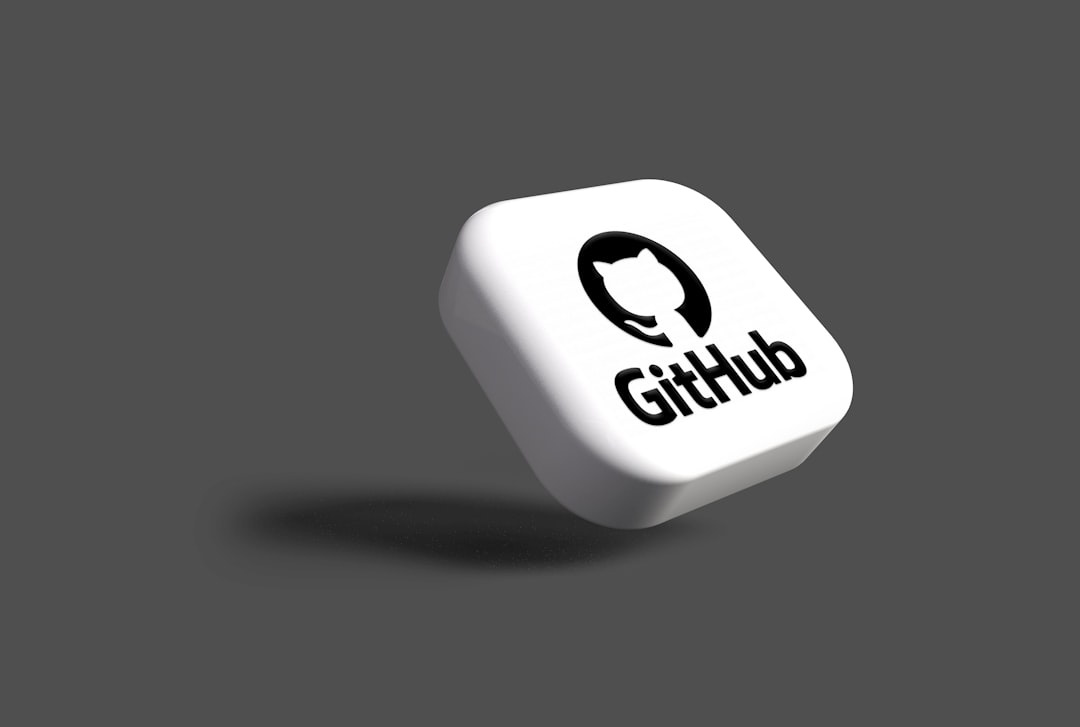
What Font Does GitHub Use?
What font does the GitHub logo use?
The GitHub wordmark is custom lettering, and the Octocat mascot is bespoke illustration, neither is a typeface glyph. As with most tech brands, the logo is a fixed asset you should not try to retype. But unlike most brands, the supporting typefaces GitHub built around that logo are fully open, so you can match the surrounding identity precisely. The same custom-logo, open-text pattern appears, in reverse, when proprietary fonts are involved, as in what font does Dropbox use.
What is Mona Sans?
Mona Sans is a variable, slightly grotesque sans-serif GitHub developed with Degarism and released openly. It is the workhorse of the modern GitHub identity: confident, neutral enough for interface text, yet characterful in its heavier weights. Because it is a variable font, it spans a wide range of weights and widths from a single file, which keeps the brand flexible and downloads lean. Mona Sans is free and open-source under the SIL Open Font License.
What is Hubot Sans?
Hubot Sans is Mona Sans’s more expressive companion, also a variable, open-source typeface from GitHub. Named after GitHub’s classic chat bot, Hubot, it carries a slightly more technical, mechanical personality for display and campaign use. Pairing a neutral text face with a punchier display face from the same studio gives GitHub contrast without clutter. Like Mona Sans, Hubot Sans is free under an open license, so you can use the exact pairing in your own projects.
What font does GitHub use for code?
Inside code blocks, diffs, and the editor, GitHub uses a monospace font stack that prefers your system’s coding fonts, commonly SFMono on macOS, Consolas on Windows, and similar, rather than shipping one fixed code face. This keeps code rendering fast and native. If you want a dedicated coding font in the same spirit, our roundups of the best monospace fonts and best programming fonts are good starting points.
GitHub fonts and free alternatives
Because GitHub open-sourced its type, almost every use case has a free, exact match. Here is the map.
| Use case | GitHub font | Free alternative |
| Logo / Octocat | Custom artwork | Not replicable — leave logos to the brand |
| Brand / UI text | Mona Sans | Mona Sans (free, open-source) |
| Display / campaigns | Hubot Sans (free, open-source) |
| Code blocks | Monospace system stack | Any free coding font (e.g. JetBrains Mono) |
Why did GitHub open-source its fonts?
Open-sourcing Mona Sans and Hubot Sans is perfectly on-brand for a company whose entire business is open collaboration. It lets the global developer community use GitHub’s typefaces in tools, extensions, and docs that orbit the platform, strengthening the ecosystem while reinforcing GitHub’s identity everywhere those fonts appear. It also reflects a practical truth: when your audience is developers, giving them the actual assets builds more goodwill than locking them away.
How to match the GitHub look in your own designs
Matching GitHub is unusually straightforward because the brand typefaces are free. Download Mona Sans for your UI and body text and Hubot Sans for headlines or campaign moments, and you are using the genuine pairing GitHub designed to work together. Both are variable fonts, so you can dial in exact weights and widths from a single file, which keeps your CSS lean and your hierarchy precise.
For a developer-facing product, lean into GitHub’s restraint: neutral Mona Sans for the interface, Hubot Sans only where you want a bit of mechanical character, and a monospace system stack for any code so it renders natively and fast. Because both faces ship under the SIL Open Font License, you can self-host them, embed them in apps, and use them commercially at no cost, just keep the license file with the font files when you redistribute. If you are choosing a dedicated coding font to sit alongside them, our roundup of the best programming fonts pairs well with the Mona Sans direction, and our font licensing guide covers the redistribution rules for open fonts.
What font does GitHub use?
GitHub uses Mona Sans for brand and interface text and Hubot Sans as an expressive display companion, both open-source variable typefaces GitHub created. Code blocks use a monospace system font stack, and the Octocat and wordmark are custom artwork.